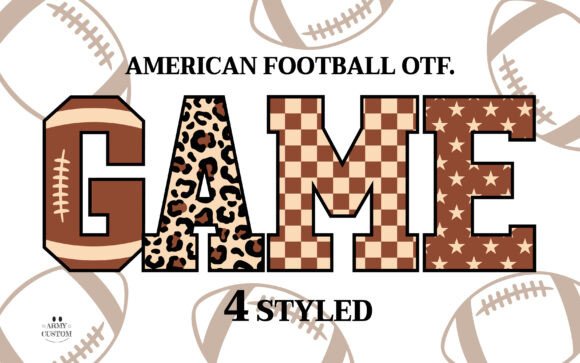
Unleash the Power of American Football Typography: A Comprehensive Guide to the American Football Bundle Font
Step into the thrilling arena of gridiron and experience the high-energy, power-packed spirit of American football like never before. The American Football Bundle Font is here to revolutionize your designs with its unique blend of dynamic lettering that captures the essence of the sport. In this article, we’ll dive into the world of American Football typography, exploring the features, benefits, and uses of this exciting font collection.
What is the American Football Bundle Font?
The American Football Bundle Font is a diverse collection of fonts that embodies the thrilling spirit of American football. This bundle is designed to provide a wide range of typographic options for designers, crafters, and football enthusiasts alike. With its bold, dynamic lettering, this font collection is perfect for creating eye-catching designs that scream energy, power, and excitement.
Key Features of the American Football Bundle Font
- Dynamic Lettering: The American Football Bundle Font features a unique blend of dynamic lettering that captures the essence of American football. Each font is carefully crafted to convey the energy, power, and excitement of the sport.
Benefits of Using the American Football Bundle Font
So, why should you choose the American Football Bundle Font for your designs? Here are just a few benefits:
- Stand Out from the Crowd: With the American Football Bundle Font, you can create unique and eye-catching designs that stand out from the crowd. Perfect for football enthusiasts, designers, and crafters looking to make a statement.
- Versatile: The American Football Bundle Font is versatile and can be used for a wide range of design projects, from sports-themed crafts to professional branding and marketing materials.
Design Ideas with the American Football Bundle Font
The possibilities are endless with the American Football Bundle Font! Here are some design ideas to get you started:
- Sports-Themed Crafts: Create custom t-shirts, hoodies, and hats with bold, eye-catching designs that showcase your love for American football.
- Football Party Decorations: Use the American Football Bundle Font to create custom banners, signs, and decorations for your next football party.
- Branding and Marketing Materials: Establish your brand identity with custom typography that screams energy, power, and excitement.
Tips and Tricks for Using the American Football Bundle Font
Here are some tips and tricks to help you get the most out of the American Football Bundle Font:
- Experiment with Colors: Don’t be afraid to experiment with different colors and combinations to create unique and eye-catching designs.
- Mix and Match Fonts: Try mixing and matching different fonts within the American Football Bundle Font to create a unique typographic style.
- Pay Attention to Kerning: Pay attention to kerning and spacing to ensure your designs look professional and polished.
In conclusion, the American Football Bundle Font is a game-changer for designers, crafters, and football enthusiasts alike. With its dynamic lettering, bold typography, and versatile design options, this font collection is perfect for creating eye-catching designs that scream energy, power, and excitement. Whether you’re looking to create sports-themed crafts, branding and marketing materials, or simply want to show off your love for American football, the American Football Bundle Font is the perfect choice. So why wait? Score a typographic touchdown with the American Football Bundle Font today!